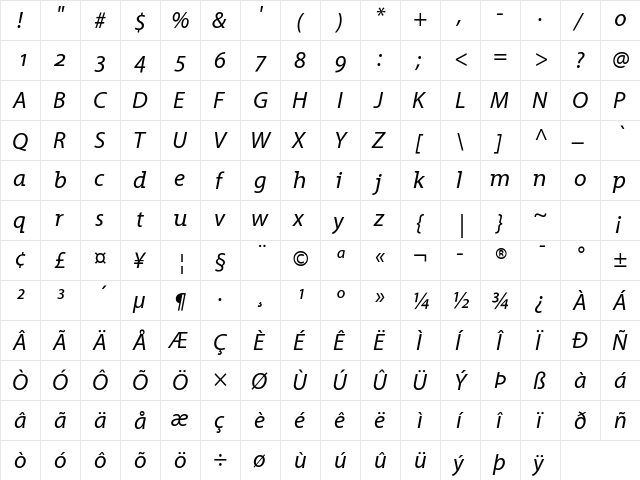
Grandesign Neue Roman Italic
Design Context for Grandesign Neue Roman Typeface
Grandesign Neue Roman is a composed and adaptable typeface that performs quietly and consistently across a wide range of design contexts. Its italic angle brings a sense of urgency and motion to the letterforms.
Pro Tip: Try Grandesign Neue Roman for annotation and caption copy alongside an upright companion — the contrast in angle creates a dynamic but ordered typographic system.